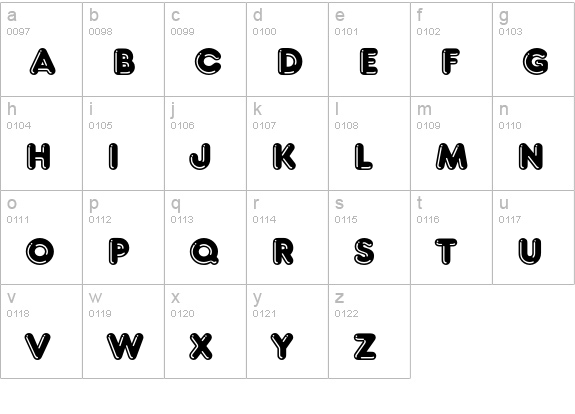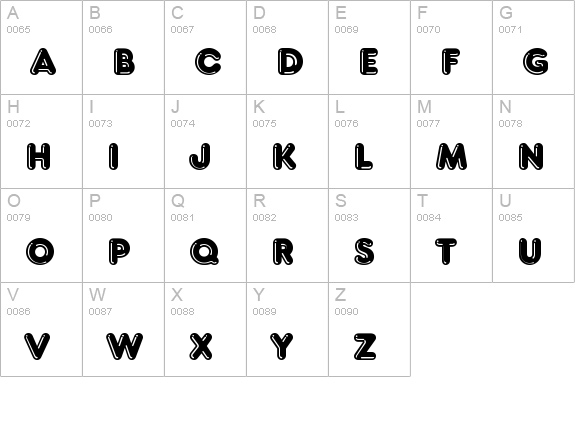
FrankfurterEF-Highlight Font Details
The FrankfurterEF-Highlight font is a versatile and stylish typeface that exudes a sense of sophistication and modernity. With its clean lines and bold strokes, this font is perfect for creating eye-catching headlines, titles, and logos. The unique design of FrankfurterEF-Highlight is sure to make your projects stand out and leave a lasting impression on your audience. What makes this font even more appealing is that it is available for free download at FontsMarket.com. Whether you are a designer looking to add a touch of elegance to your work or a business owner in need of a professional and contemporary font for your branding, FrankfurterEF-Highlight is the perfect choice. Download this stunning font today and elevate your designs to the next level.